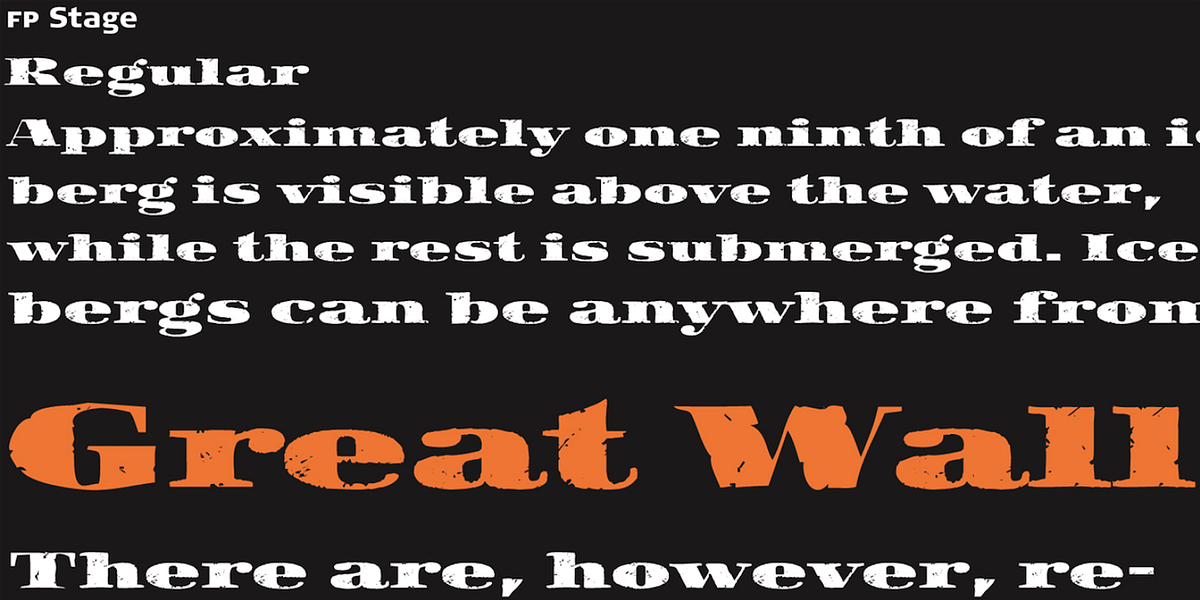
FP Stage
FP Stage is a hand display serif font inspired by the typographic designs found on old Victorian theater posters. It features a rough and distressed aesthetic, giving it a distinctly vintage feel.